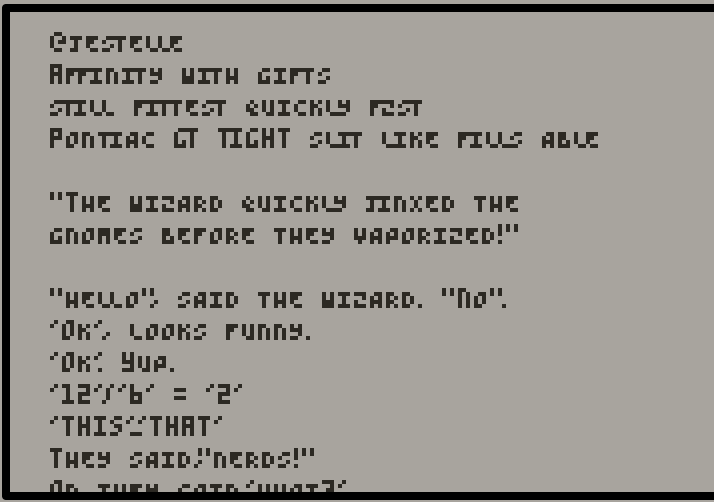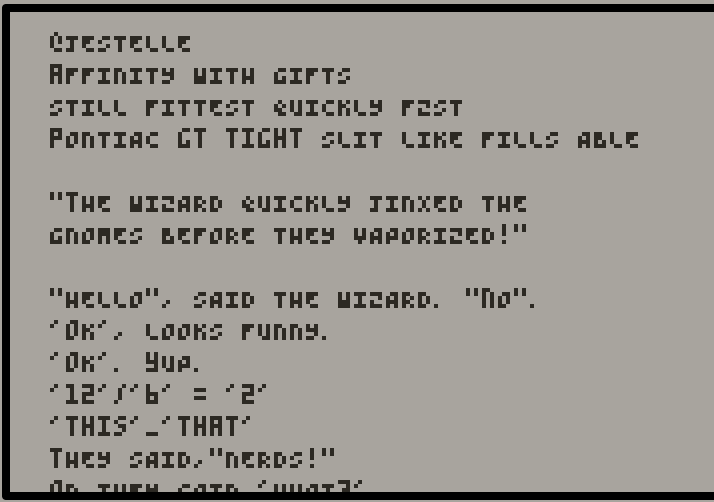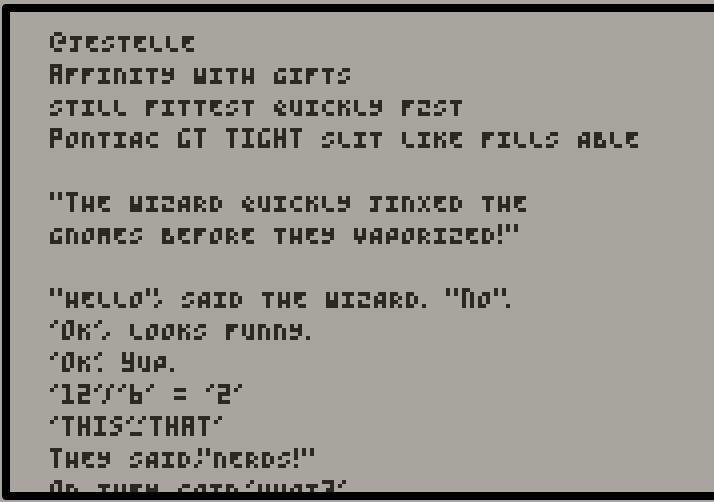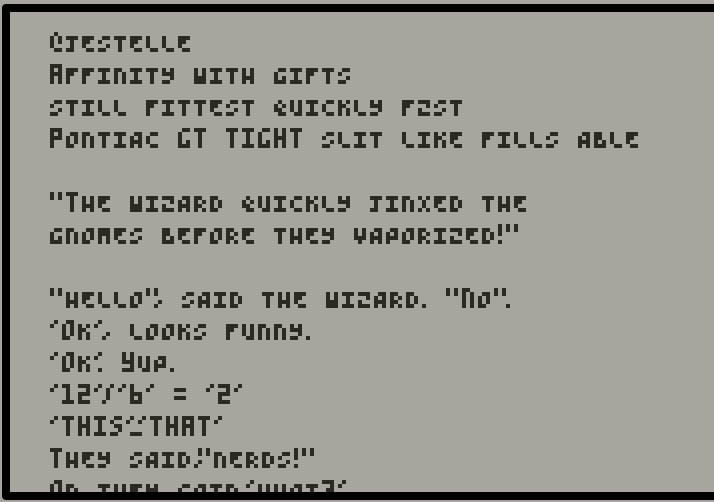
Ok – so I had some fun playing with Playdate Caps tonight.
It's not great. I didn't spend long on it, and I learned the tool.
But recently I learned about Pico8 and I was rather delighted by their tiny font. It's very small (5-pixels tall), but very readable.
I thought I was going to quickly copy the glyphs into Caps and have a font ready to use, but I started nerding out over the kerning and trying to create ligatures, so I ended up creating a few fonts.
Pico-8
I kind of intended this one to be true to the original Pico-8 font, but as I look closer, I think the original font was really more of a mono font, where this one I still allowed for some fairly aggressive kerning (i.e., the letters get tight in on each other, especially some of the symbols)
Pico-8 mono
This is actually pretty true to the original. A monospaced font. Lovely, readable, tiny.
Pico-8 plus
This is the same as the first one, plus slightly wider # and @ symbols.
Pico-8 ligatures
This is my favorite, where I went crazy and added a bunch of ligatures (i.e., where letters connect to letters nearby them, like ff, fi, ly).
What do you think?
Did I go overboard on my kerning? On the ligatures?
Do let me know if you try using these fonts and which one you end up liking.